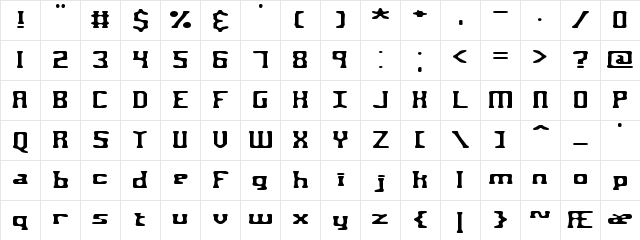
Aspartame BRK Regular
Design Context for Aspartame BRK
Aspartame BRK is a composed and adaptable typeface that performs quietly and consistently across a wide range of design contexts.
Pro Tip: Use Aspartame BRK in both headline and body roles to test its range before committing to a single application.